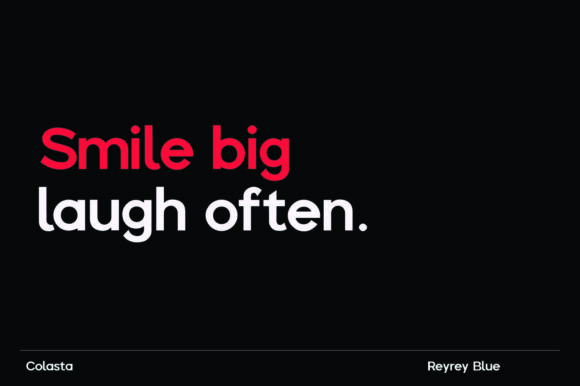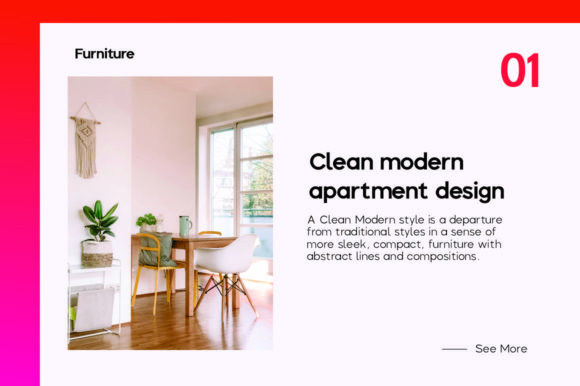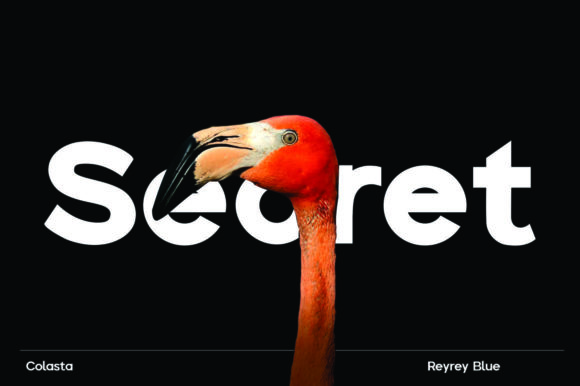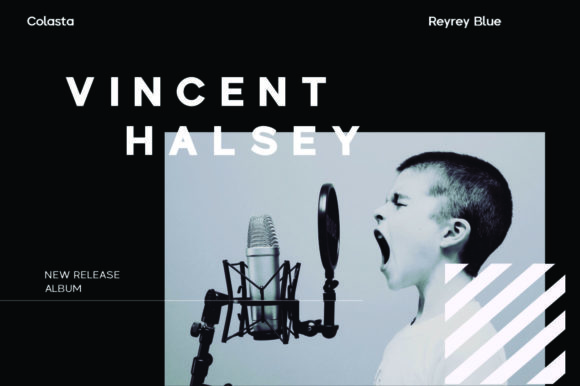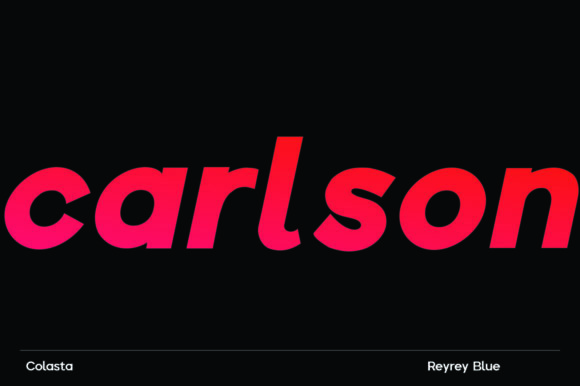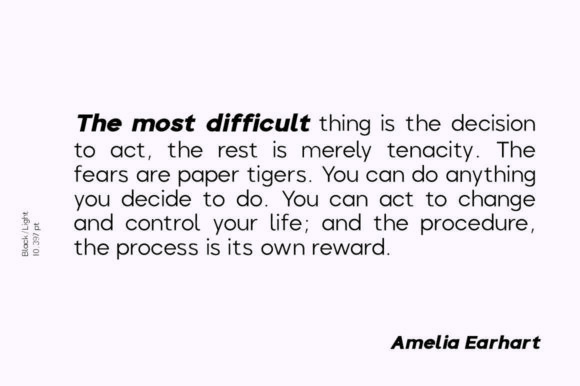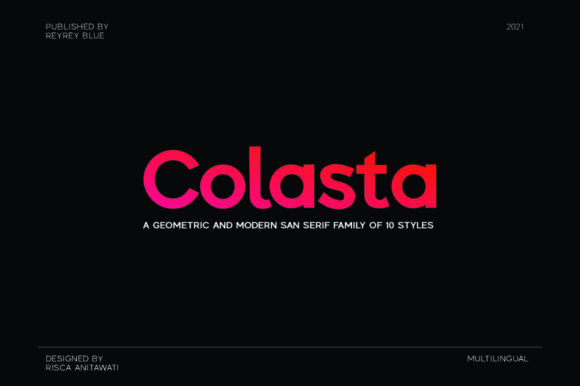
Introducing Colasta Font: The Ultimate Sans Serif for Creative Projects
Are you a designer or crafter looking for a font that can elevate your creative projects to the next level? Look no further than Colasta Font, a minimal and neat sans serif font that is perfect for a wide range of applications. In this article, we’ll take a closer look at Colasta Font, its features, and how it can be used to make your projects stand out.
What is Colasta Font?
Colasta Font is a modern sans serif font that is designed to be clean, elegant, and highly versatile. Its minimalistic design makes it perfect for use in a variety of projects, from digital designs to print materials. The font is highly legible, making it easy to read and understand, even at small sizes.
Key Features of Colasta Font
So, what makes Colasta Font so special? Here are some of its key features:
- Minimal and Neat Design: Colasta Font has a clean and minimalist design that makes it perfect for use in a wide range of projects.
- Sans Serif: The font is a sans serif font, which means it doesn’t have any decorative lines or flourishes.
- Highly Legible: Colasta Font is highly legible, making it easy to read and understand, even at small sizes.
- Versatile: The font is highly versatile and can be used in a wide range of projects, from digital designs to print materials.
How to Use Colasta Font in Your Projects
Colasta Font can be used in a wide range of projects, including:
- Digital Designs: Use Colasta Font in your digital designs, such as website headers, social media graphics, and more.
- Print Materials: Use the font in your print materials, such as brochures, flyers, and business cards.
- Logos and Branding: Use Colasta Font to create logos and branding materials that are clean, elegant, and highly professional.
- Crafting and DIY Projects: Use the font in your crafting and DIY projects, such as handmade cards, gift tags, and more.
Why Choose Colasta Font?
So, why should you choose Colasta Font for your projects? Here are some reasons:
- Unique and Modern Design: Colasta Font has a unique and modern design that will make your projects stand out.
- Highly Versatile: The font is highly versatile and can be used in a wide range of projects.
- Easy to Read: Colasta Font is highly legible, making it easy to read and understand.
- Supports Multiple Languages: The font supports multiple languages, making it perfect for use in international projects.
In conclusion, Colasta Font is a minimal and neat sans serif font that is perfect for use in a wide range of projects. Its clean and elegant design makes it highly versatile, and its high legibility makes it easy to read and understand. Whether you’re a designer, crafter, or DIY enthusiast, Colasta Font is a great choice for your next project. So why wait? Download Colasta Font today and see how it can elevate your creative projects to the next level!
- Is Colasta Font suitable for use in digital designs?: Yes, Colasta Font is perfect for use in digital designs, including website headers, social media graphics, and more.